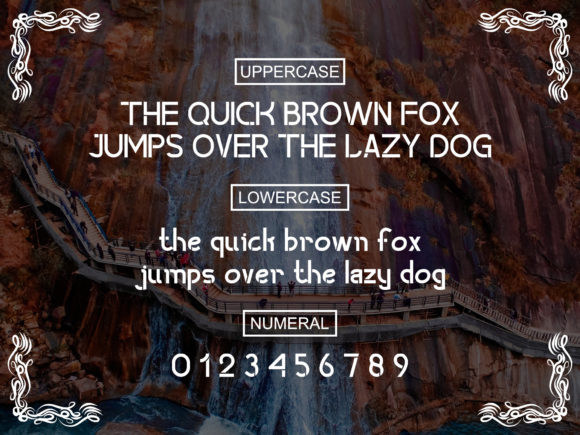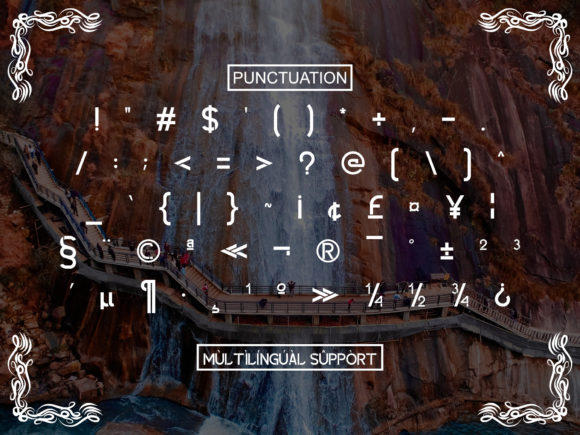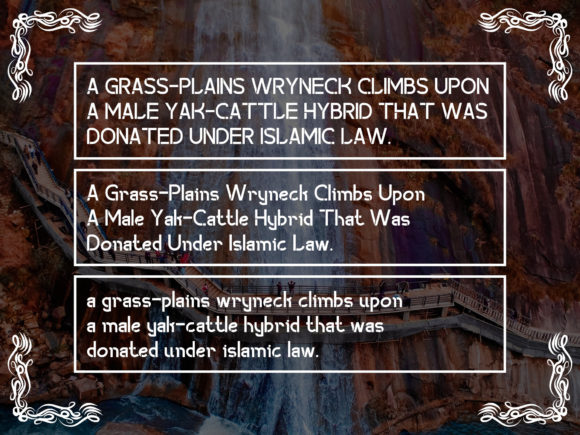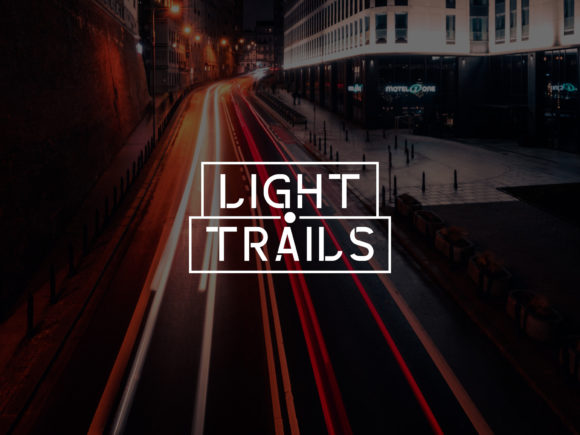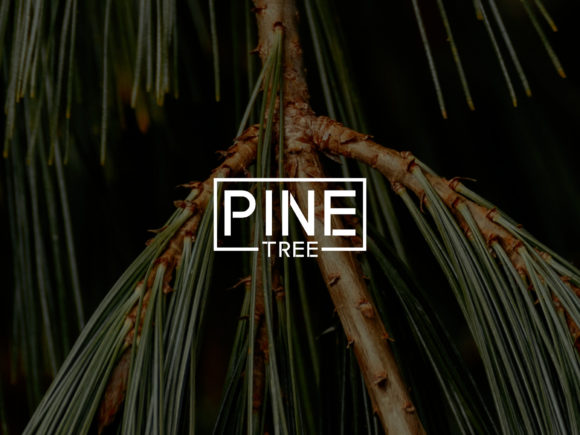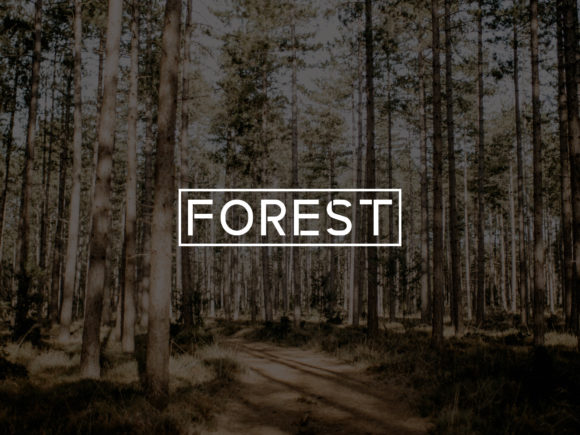
Introduction to Dylany Font
Dylany is a timeless display font.
With smooth, clean lines and just a touch of contrast, Dylany works beautifully for logos, branding, and web headings Add this font to your most creative ideas, and notice how it makes them stand out.